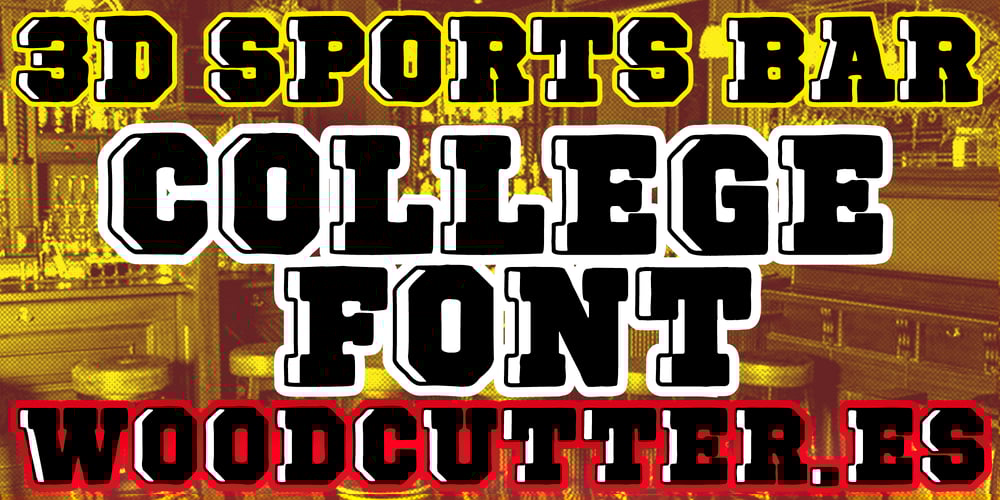
3 D Sports Bar Font Family was designed by Jordi Manero and published by Woodcutter. 3 D Sports Bar contains 1 styles and family package options. “3D Sports Bar” is a college-style font that stands out with its three-dimensional design featuring shadows inverted to the left. This detail gives it a robust and dynamic appearance, perfect for grabbing attention in titles and signage. The solid and well-defined letters evoke a sporty and academic spirit, adding a touch of nostalgia and energy to any design. Additionally, the font includes accents, making it versatile for a variety of languages. “3D Sports Bar” is ideal for projects seeking a strong and vibrant aesthetic.